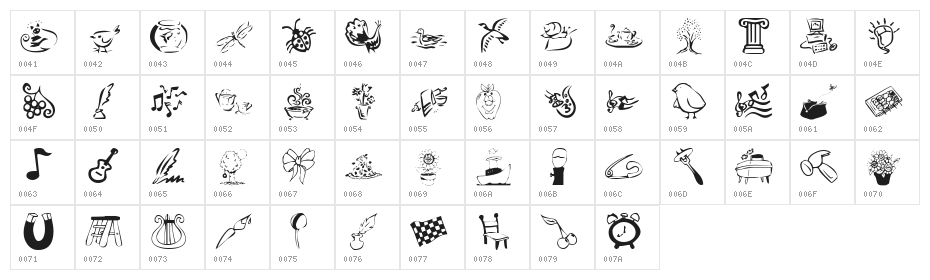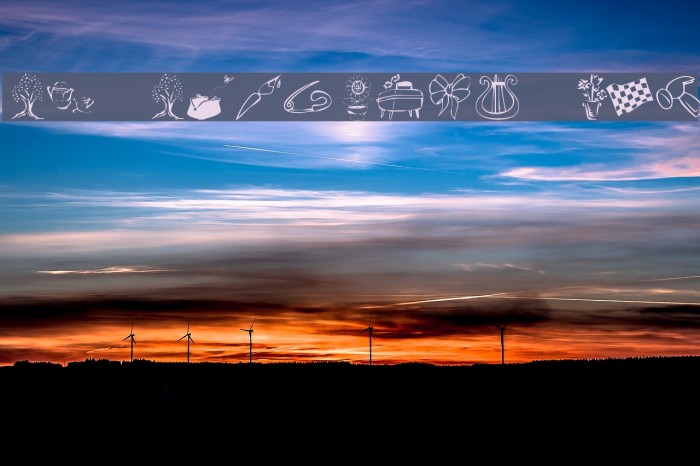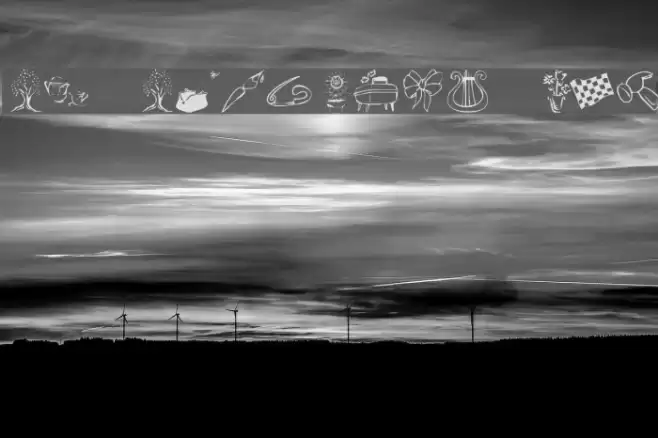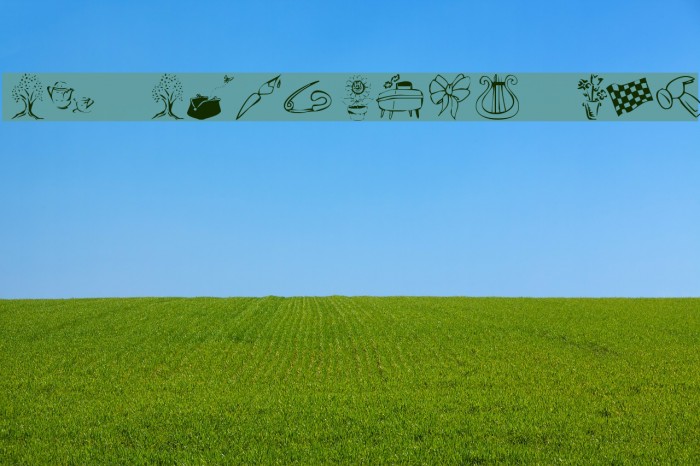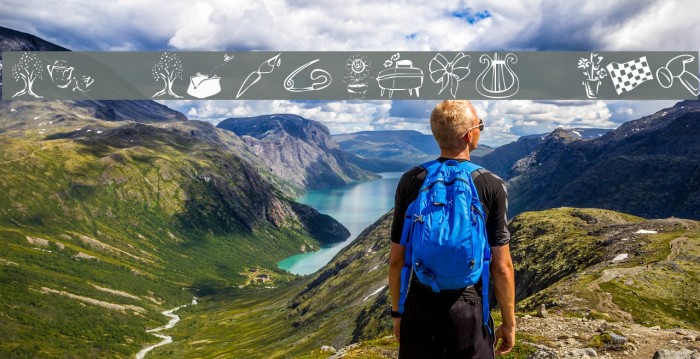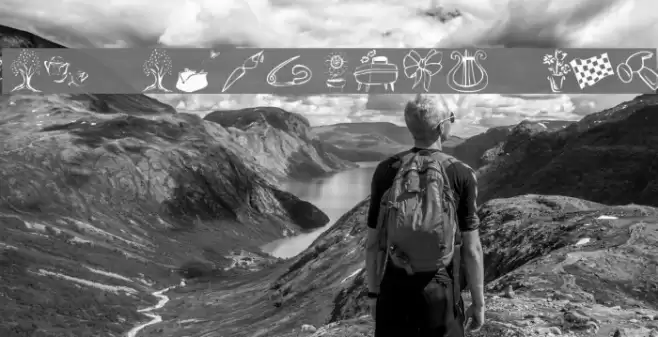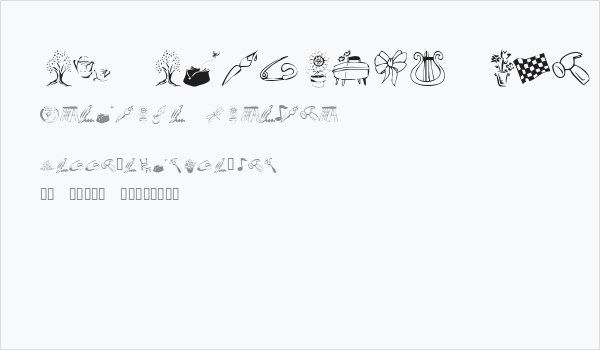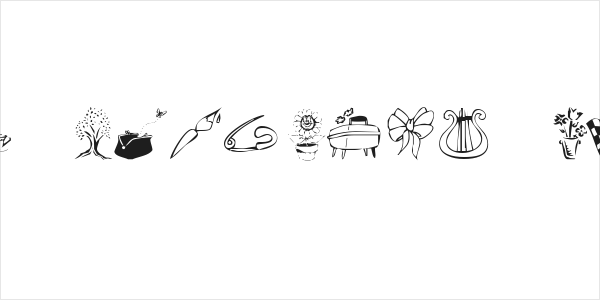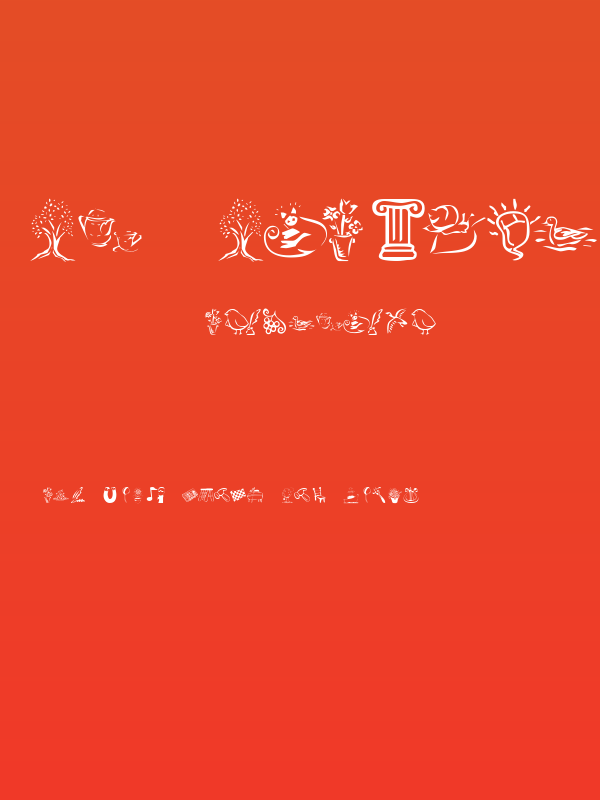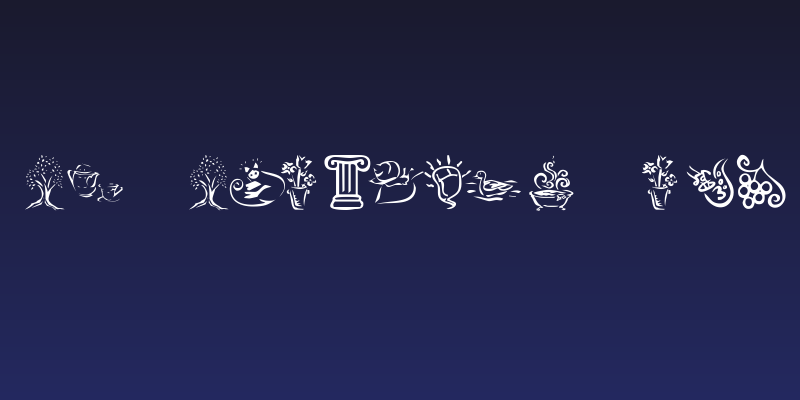
KR Katlings Two Font
KR Katlings Two Description
This is a decorative font composed entirely of whimsical and playful illustrations. Each character is represented by a unique drawing, such as animals, musical notes, and various objects, creating a lively and imaginative visual experience. The style is highly detailed, with each illustration capturing a distinct theme or concept. The font is not suitable for traditional text but serves as a creative tool for artistic projects. Its intricate designs make it ideal for adding a touch of fun and creativity to any visual work.
| Use Case | Logos, Artistic designs, Creative projects |
| Proposed Projects | Ideal for creative projects such as greeting cards, children's books, playful posters, and artistic designs where a touch of whimsy is desired. |